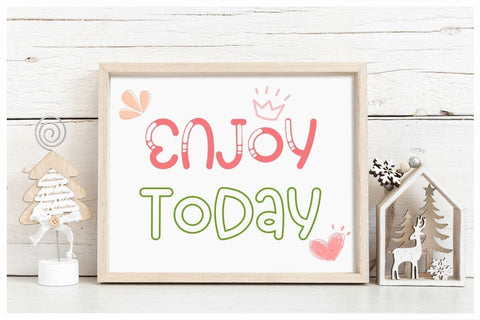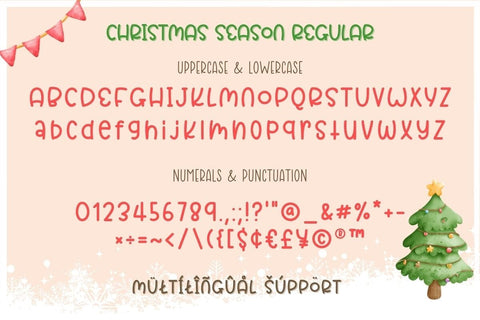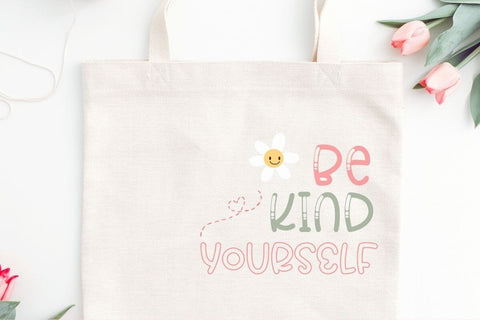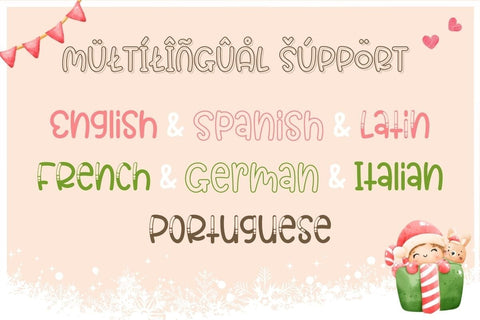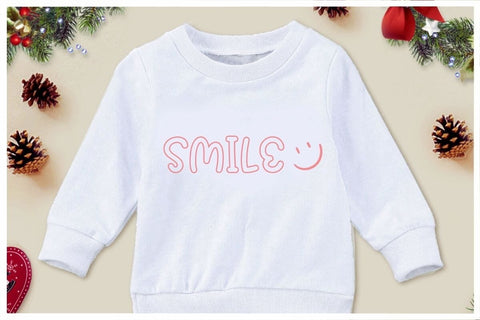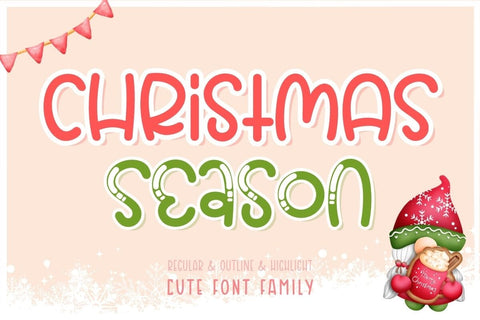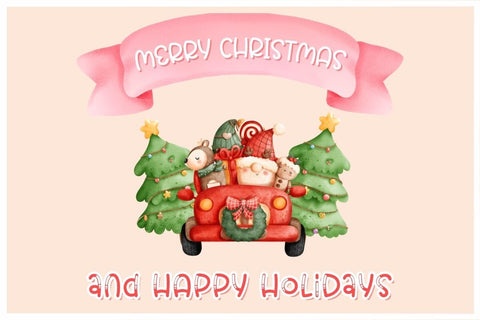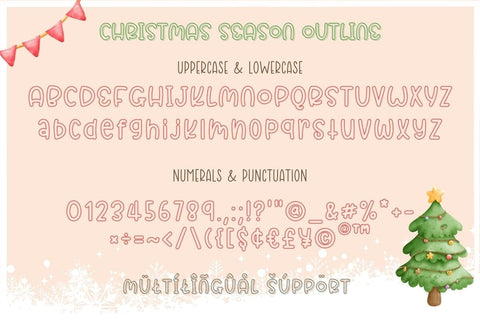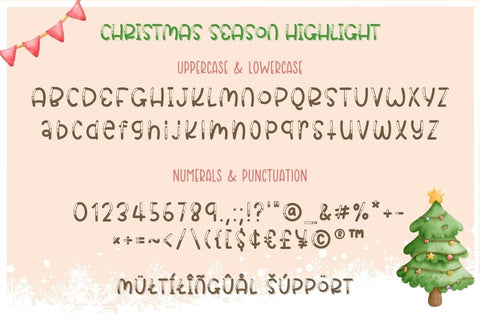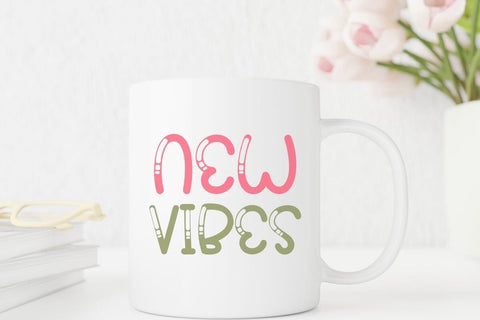
Christmas Season - Handwritten Font Trio
🎄 Elevate Your Holiday Designs with Christmas Season Font Trio! 🎅
Looking to add a festive touch to your holiday projects? Our Christmas Season Font, available in three delightful styles – regular, outline, and highlight – is the perfect choice. With multilingual support and a digital format, this font makes creating holiday-themed designs a breeze.